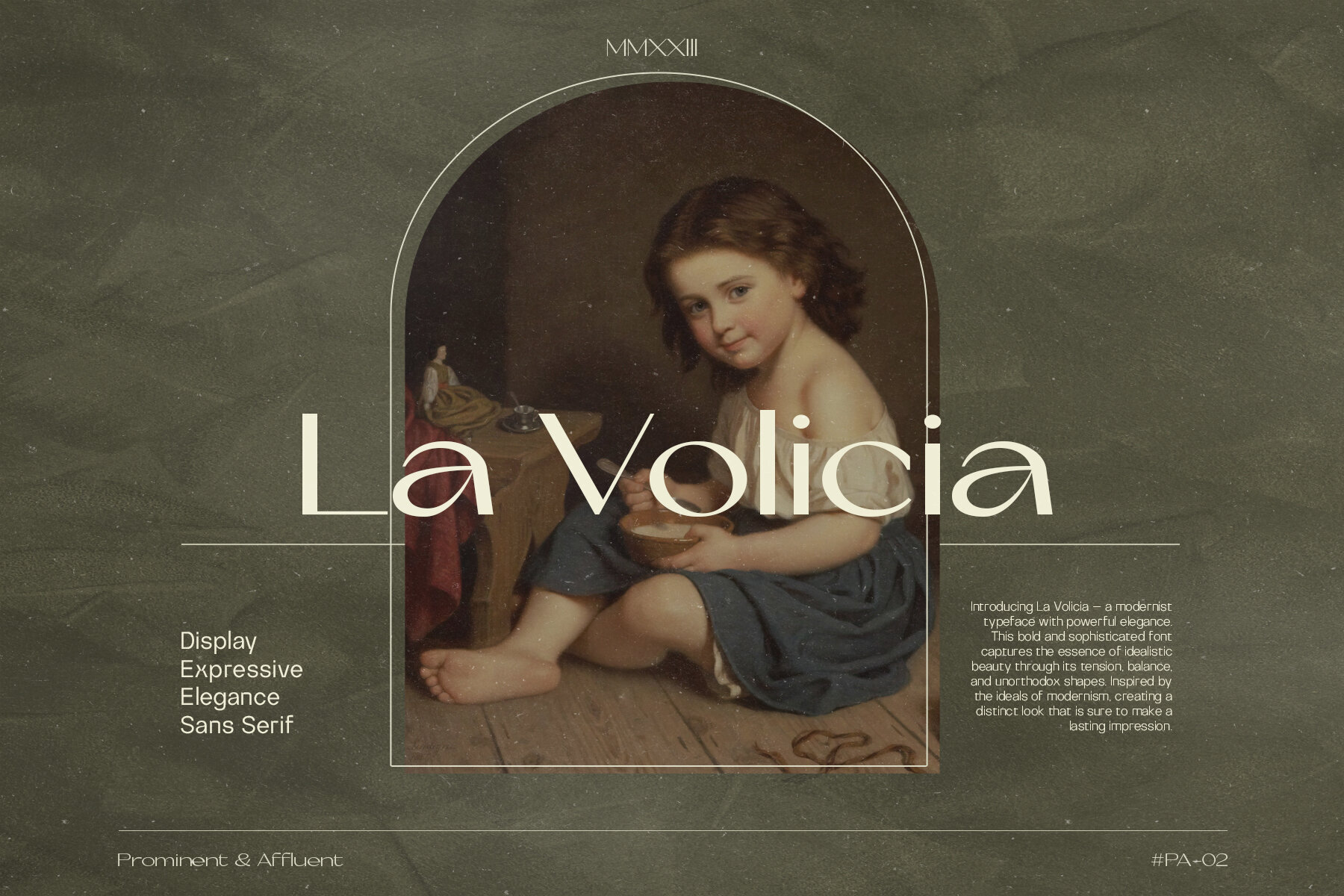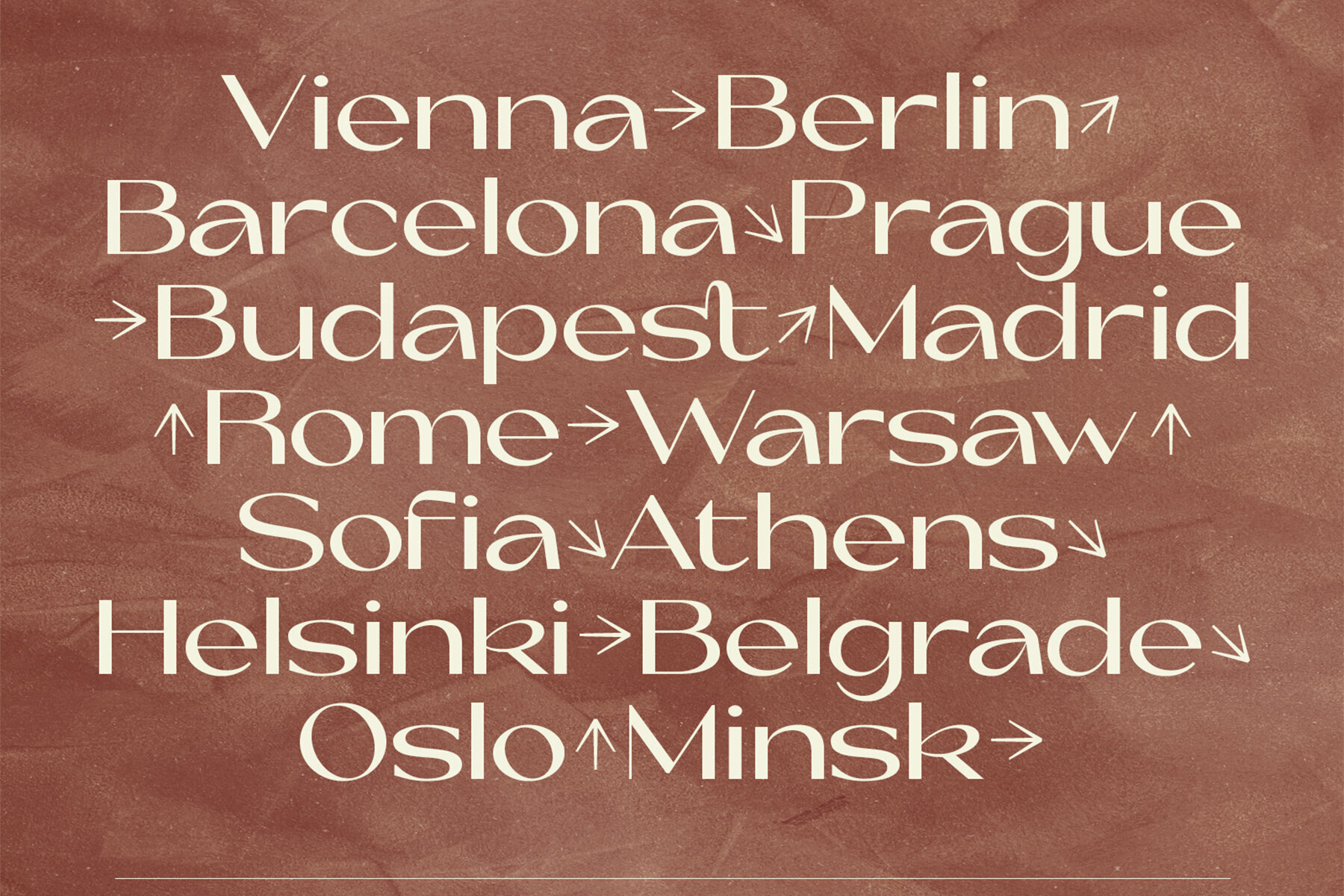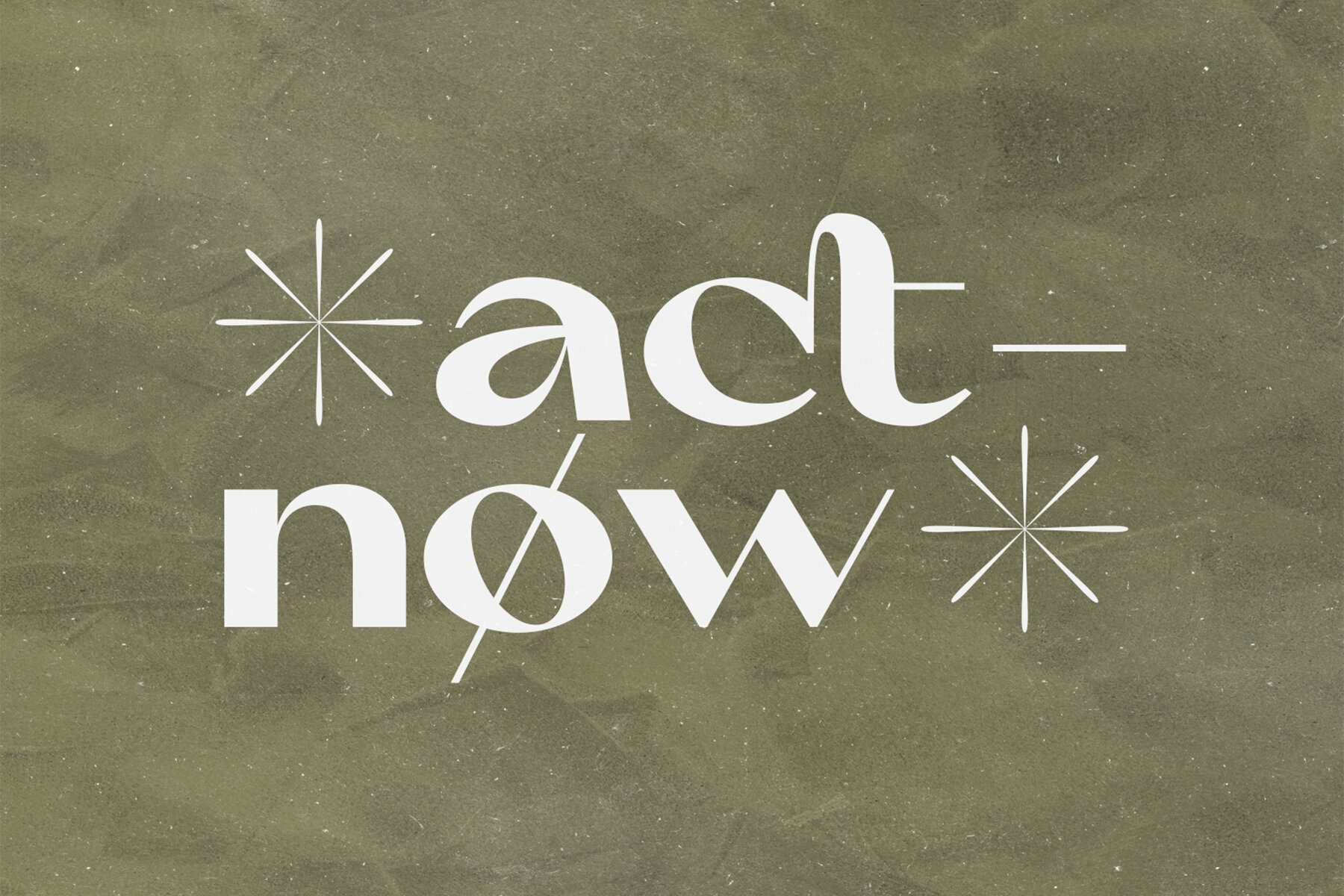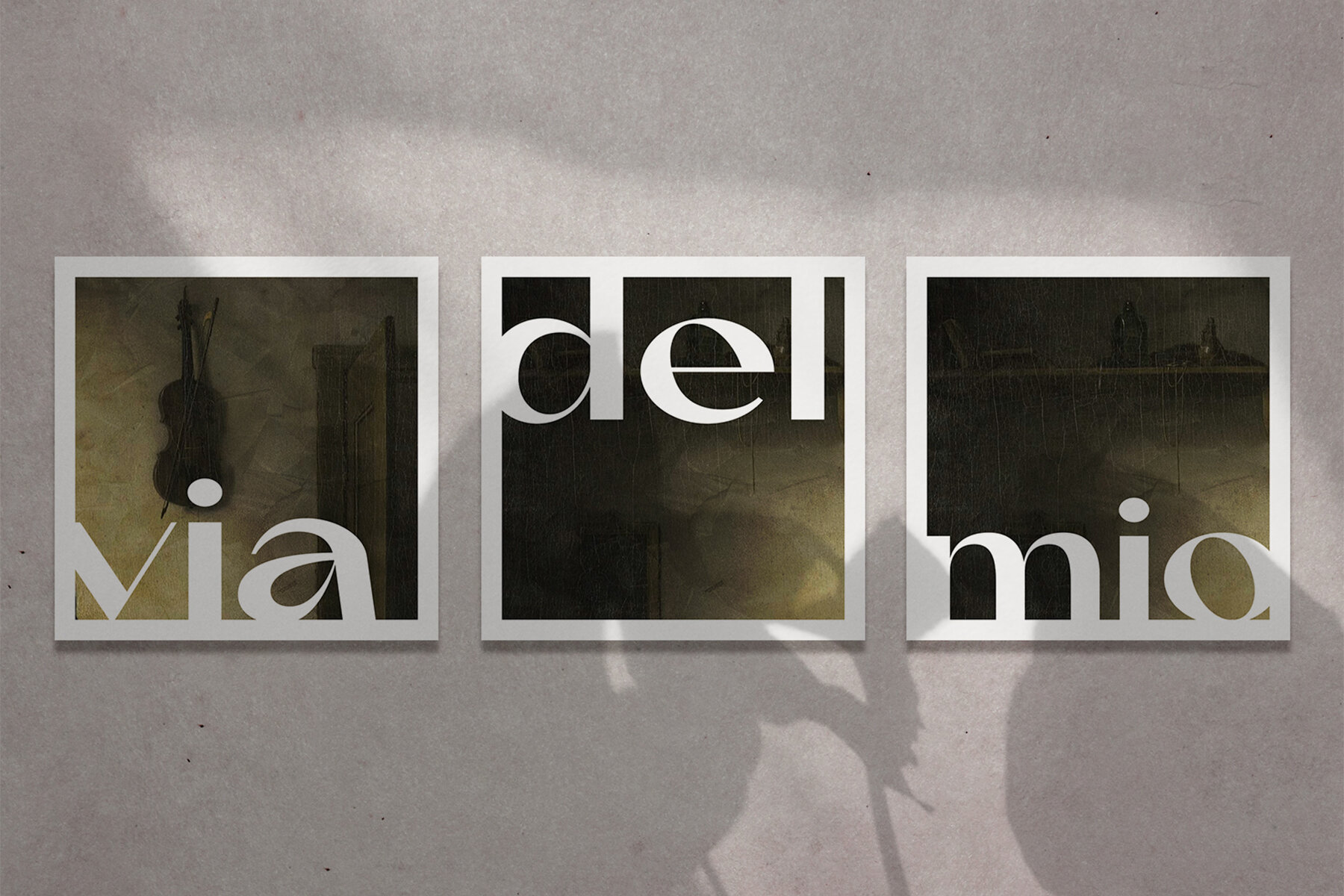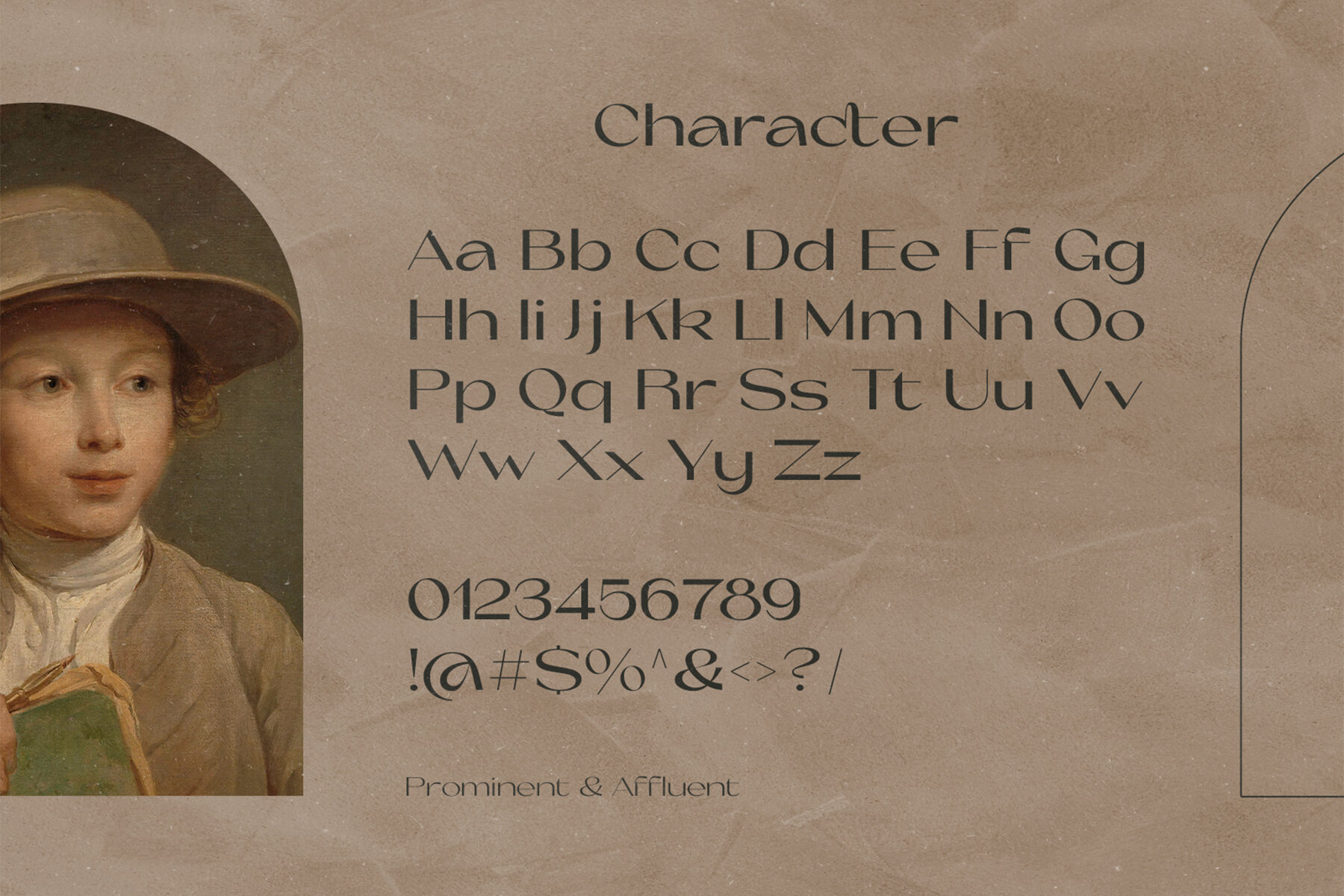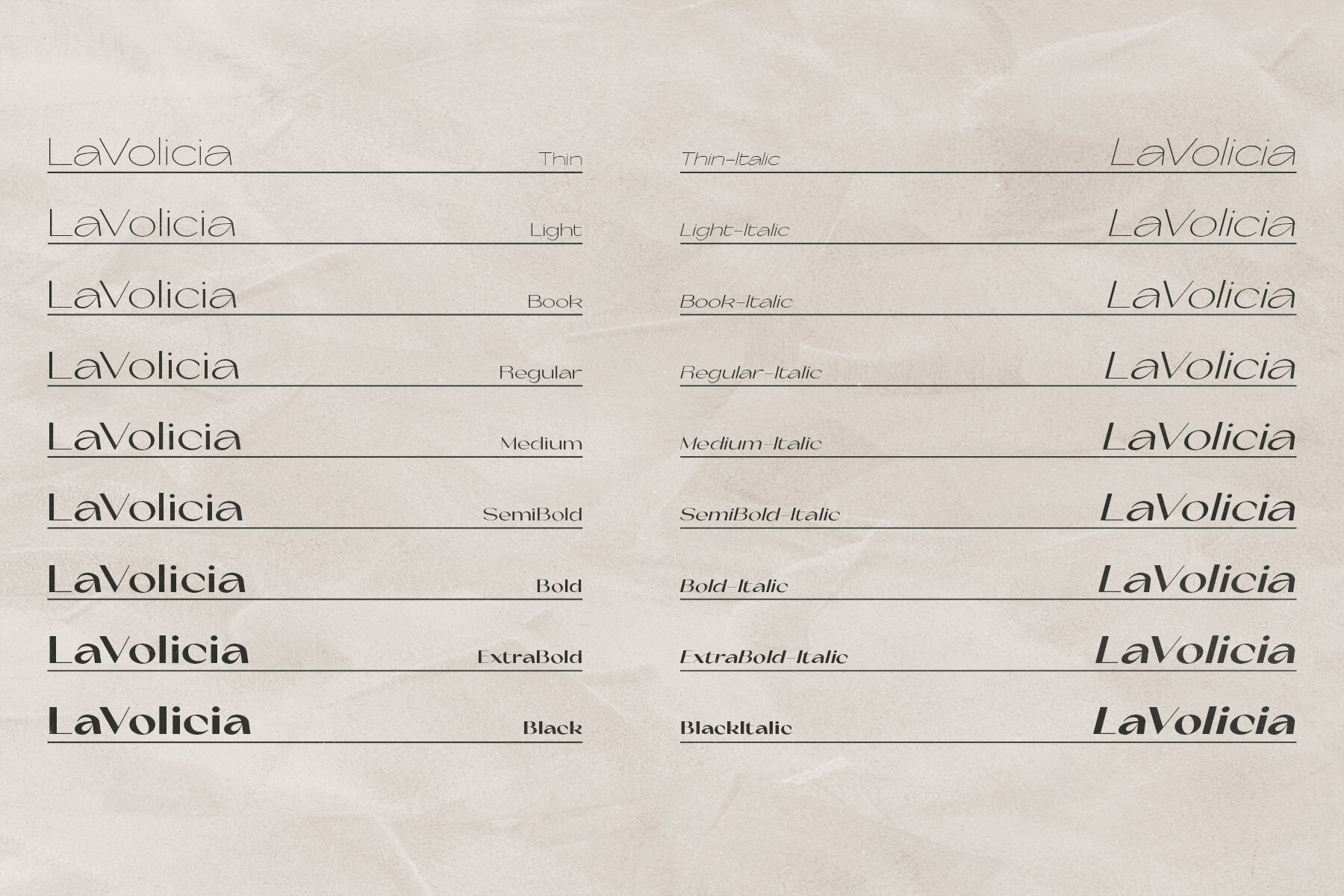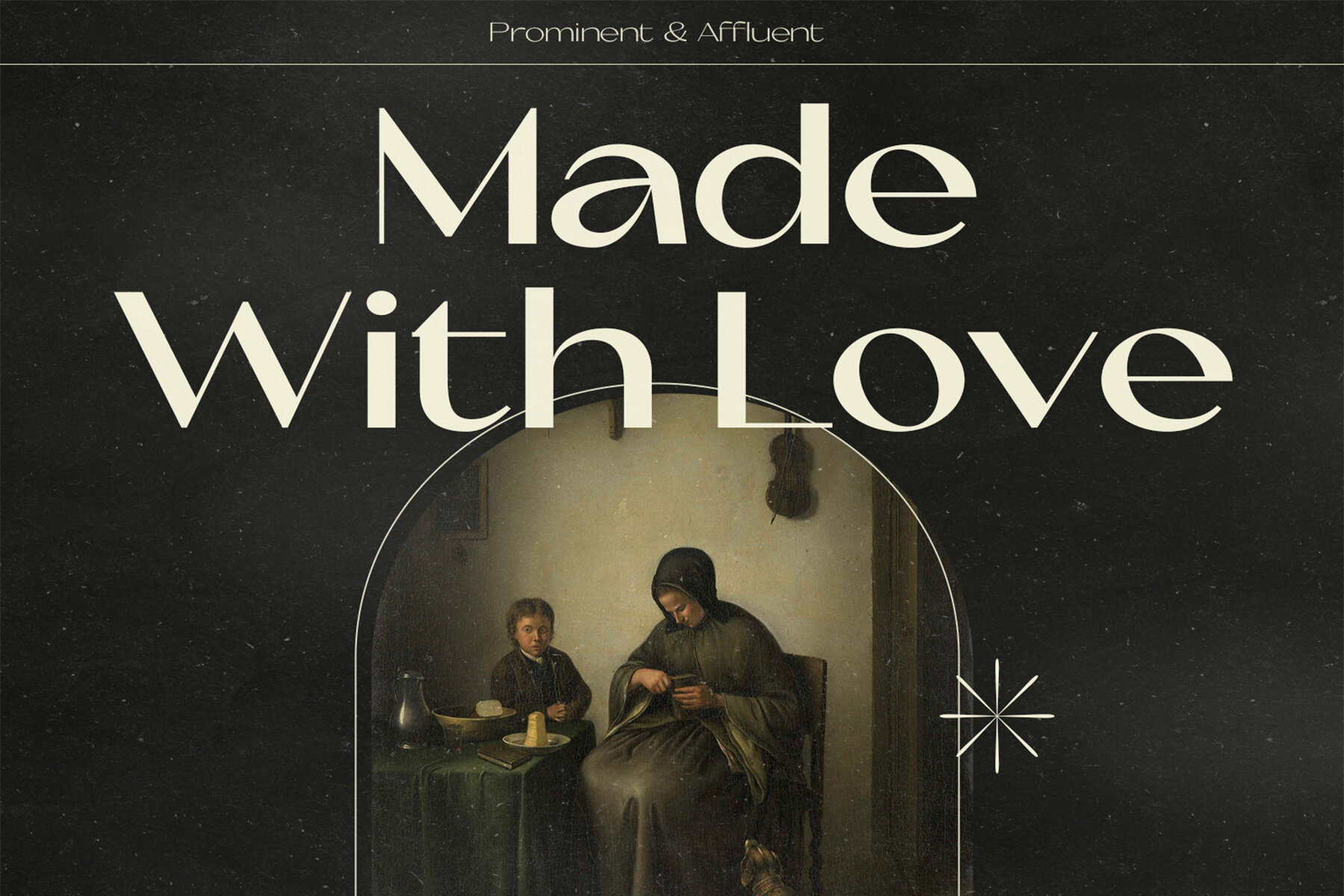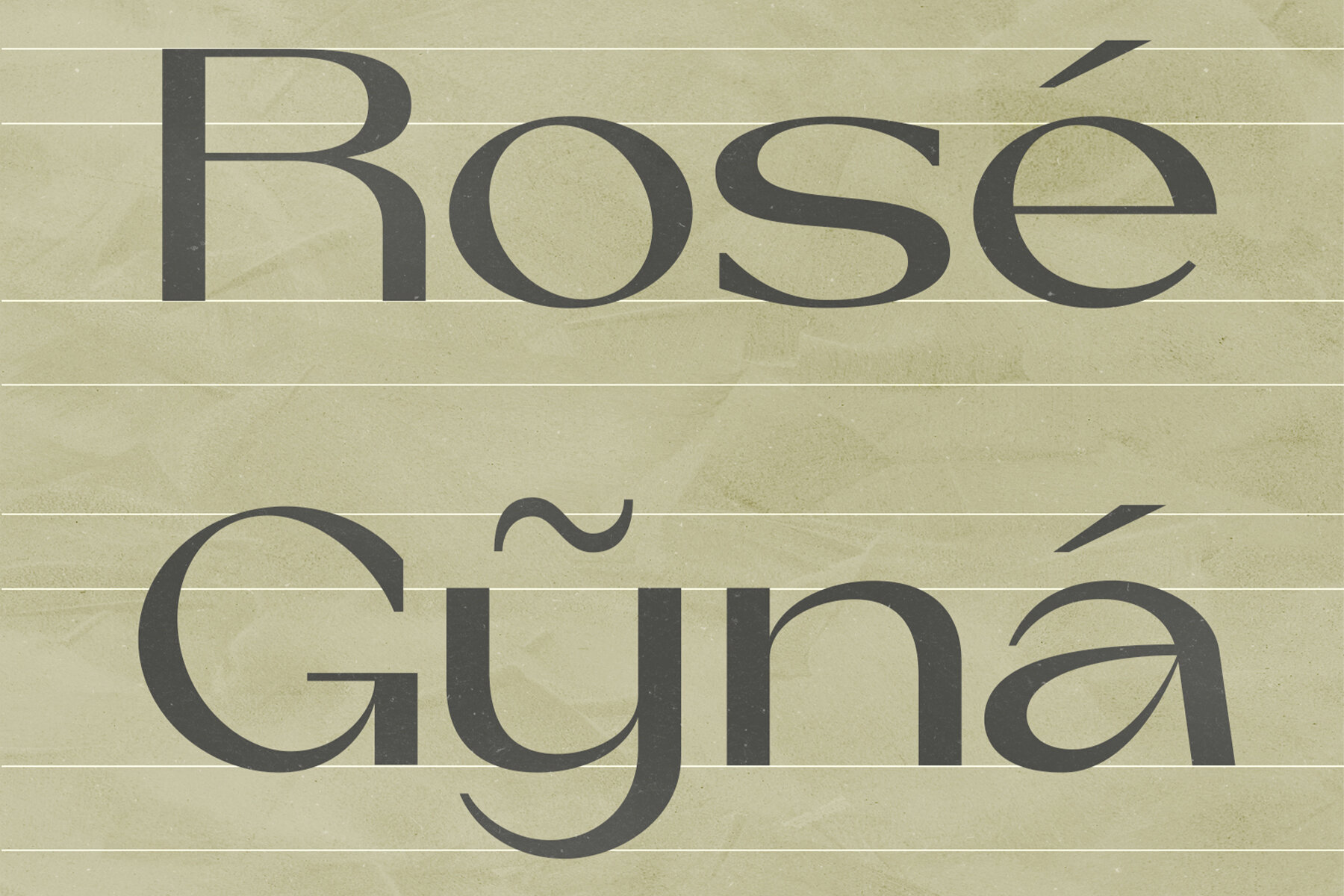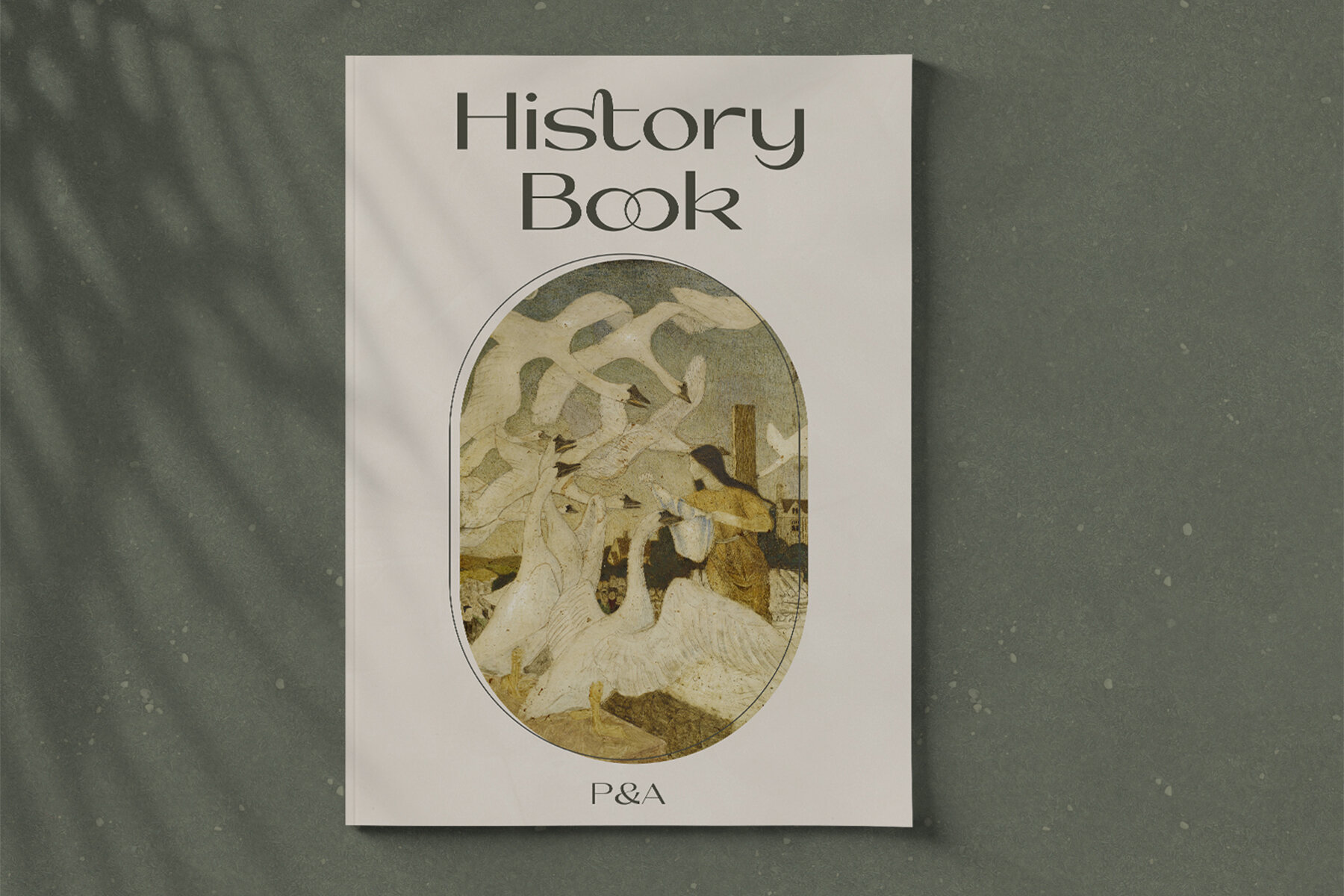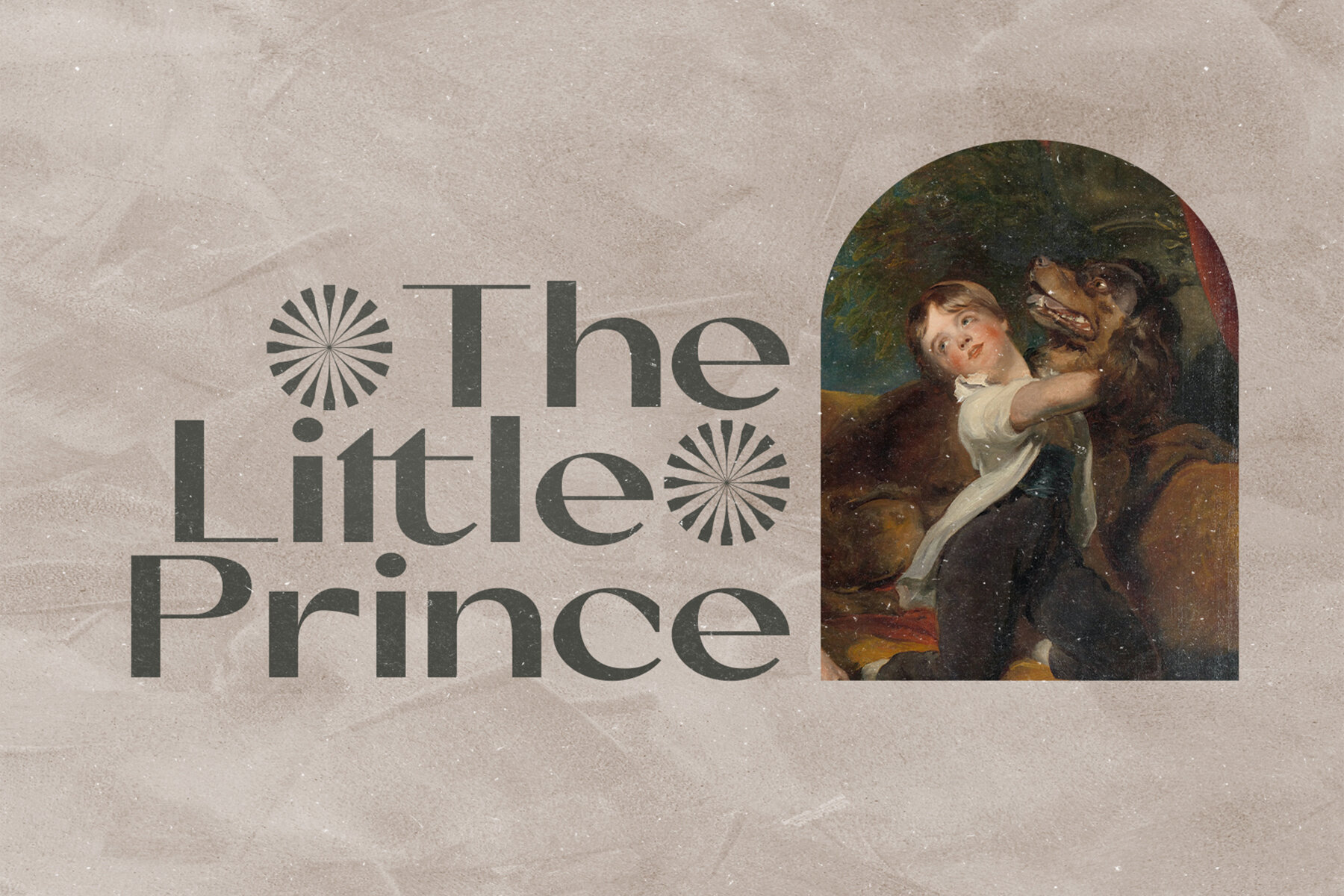
La Volicia Font
La Volicia is a design statement that echoes the ideals of an era that sought to break boundaries and embrace new possibilities. Each letterform is an embodiment of purity and clarity, making it the perfect choice for those who value forward-thinking design. Ideal for a wide range of applications, from branding to web design. Its clean lines and minimalist aesthetic enable you to convey your message with precision and uncluttered elegance.